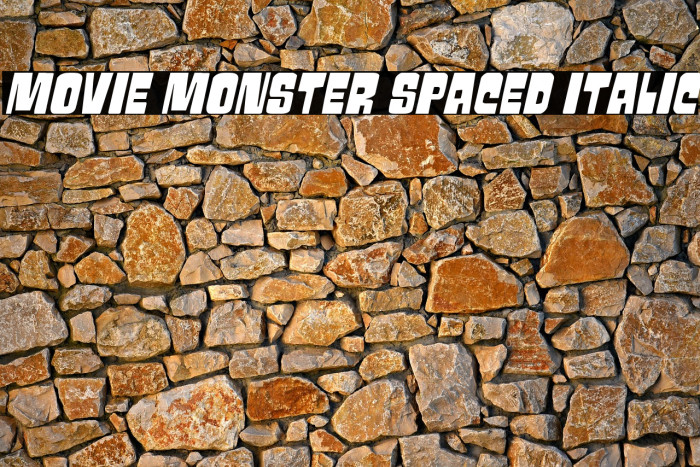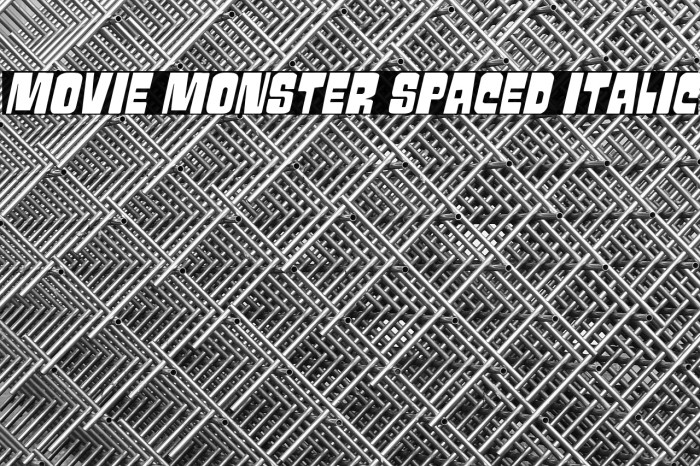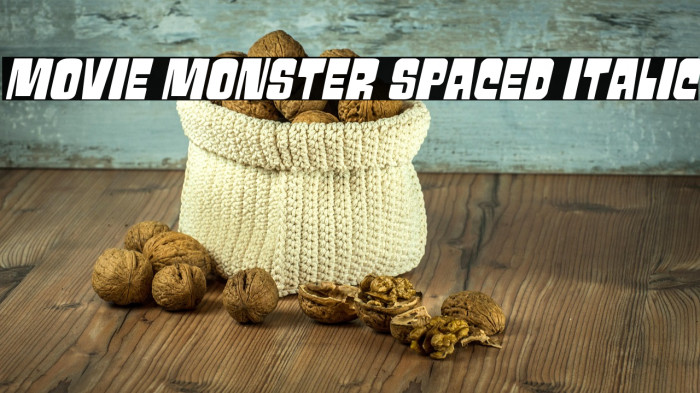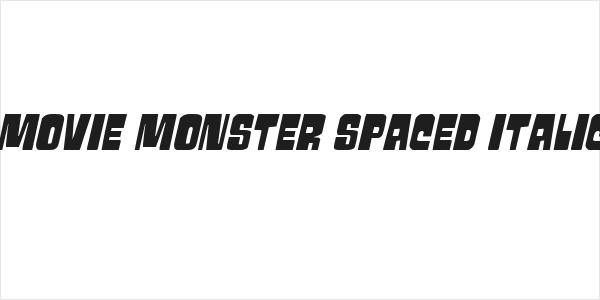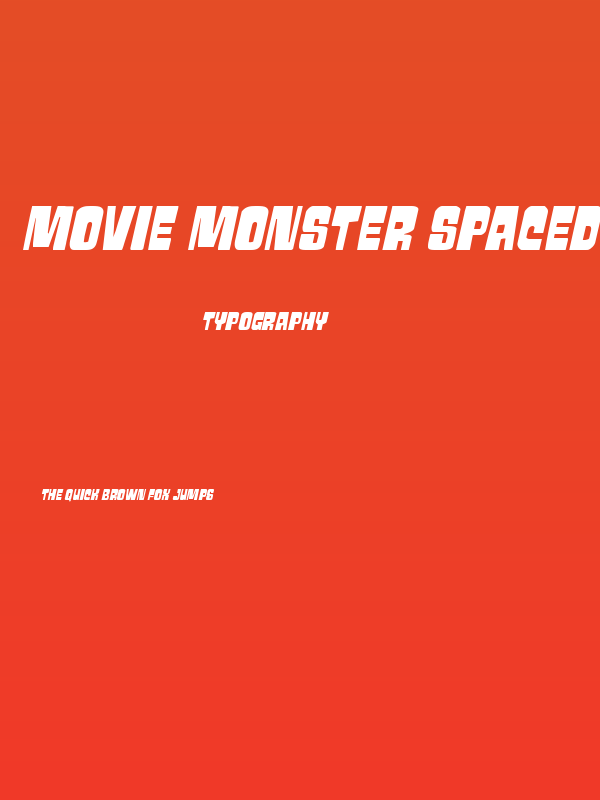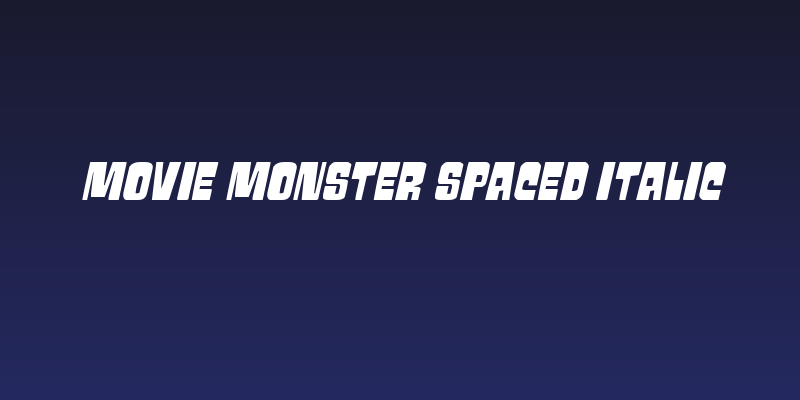
Movie Monster Spaced Italic Font
Movie Monster Spaced Italic Description
This font features a bold and dynamic style with a strong presence. Each character is designed with a forward-leaning italic slant, giving it a sense of motion and urgency. The letters are thick and blocky, with sharp angles and clean lines that create a powerful visual impact. The spacing between characters is slightly wide, allowing for clarity and readability even at smaller sizes. The font's high contrast in stroke thickness adds to its dramatic and eye-catching appearance, making it ideal for attention-grabbing headlines or titles.
| Proposed Projects | Perfect for movie posters, video game titles, sports branding, or any project requiring a bold and impactful typeface. |